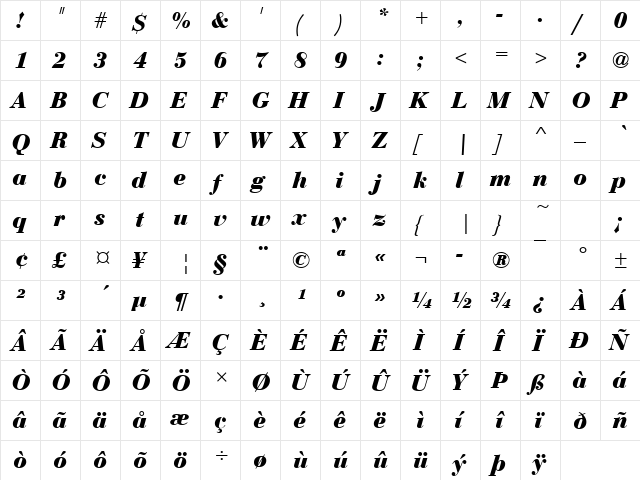
EuroBodT Bold Italic
Design Context for EuroBodT Typeface
EuroBodT offers clean, dependable letterforms without strong stylistic allegiance, making it a practical choice for designers who need flexibility. The slanted form adds forward momentum and visual energy. The heavy weight commands attention and anchors typographic hierarchies.
Pro Tip: Use EuroBodT for emphasis, pull quotes, and subheadings where its slanted energy can add rhythm to the layout.